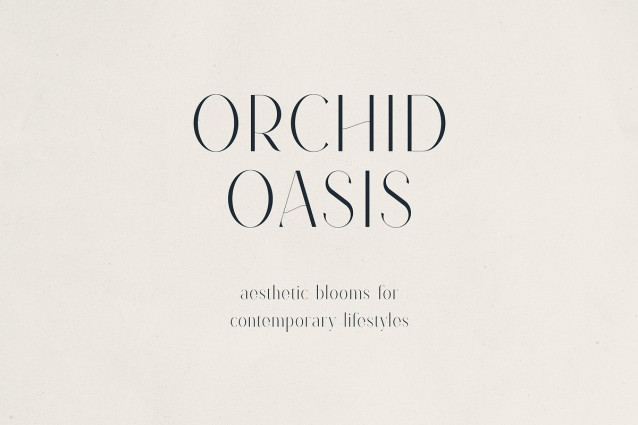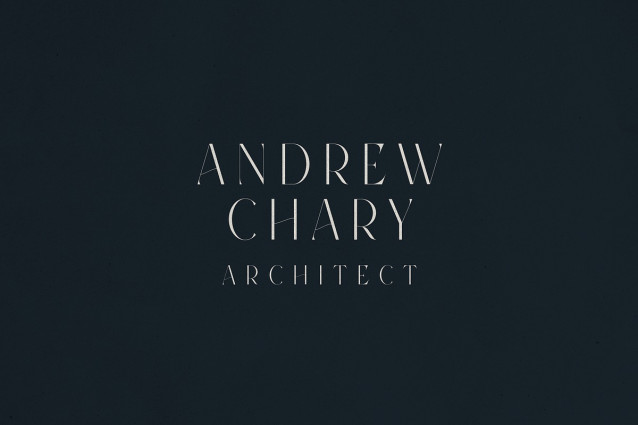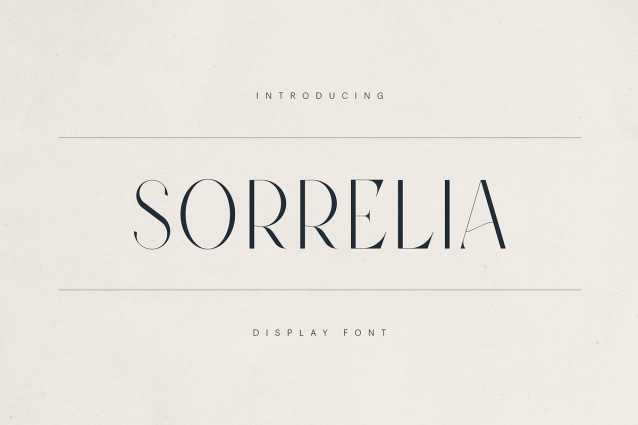
Sorrelia Font
Sorrelia Font is a luxurious, high-contrast serif display font designed for refined visual storytelling. With a perfect blend of modern elegance and timeless sophistication, Sorrelia features elongated letterforms, hairline serifs, and artistic curves, making it ideal for upscale branding, beauty packaging, editorial design, and premium fashion campaigns.